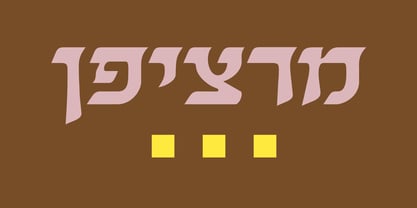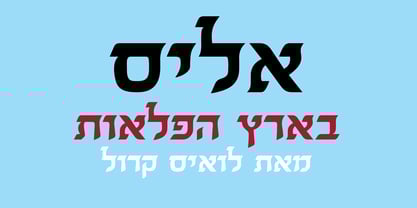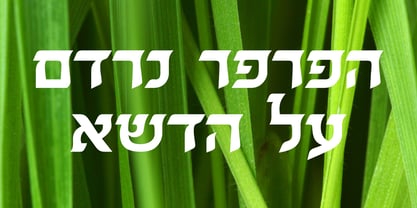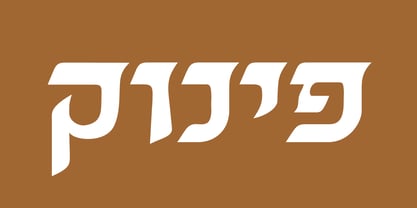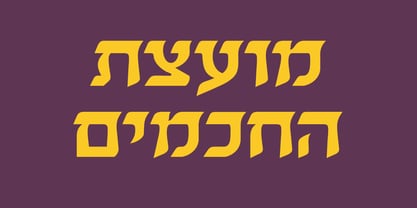
Almenat MF
by Masterfont
The Almenat MF Font Family was designed by Eliyahu Fried and published by Masterfont. Almenat MF contains 1 styles.
Elegant, traditional high contrast display font.
Designers: Eliyahu Fried
Publisher: Masterfont
Foundry: Masterfont
Design Owner: Masterfont